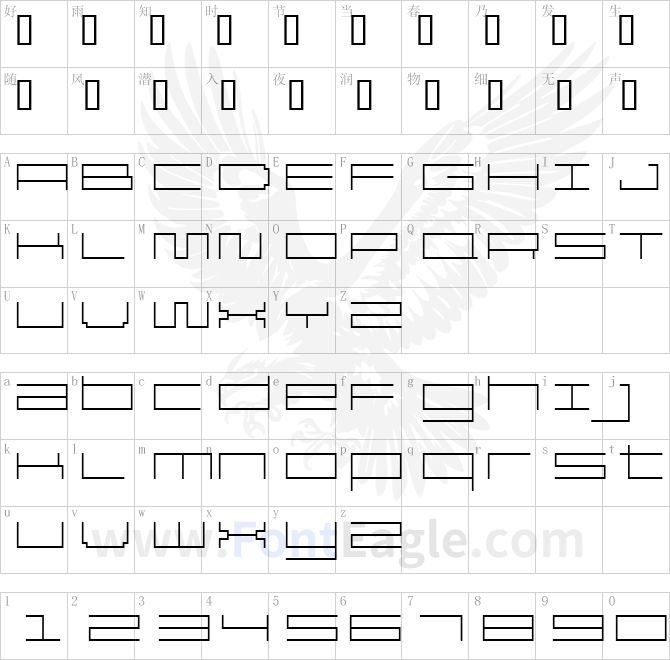
Reversion-Thin is a great font, widely used in graphic design, single-page menu design, poster design and other fields, and is deeply loved by designers.Reversion-Thin download.